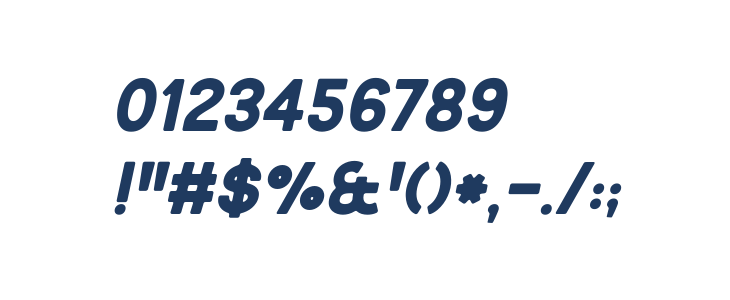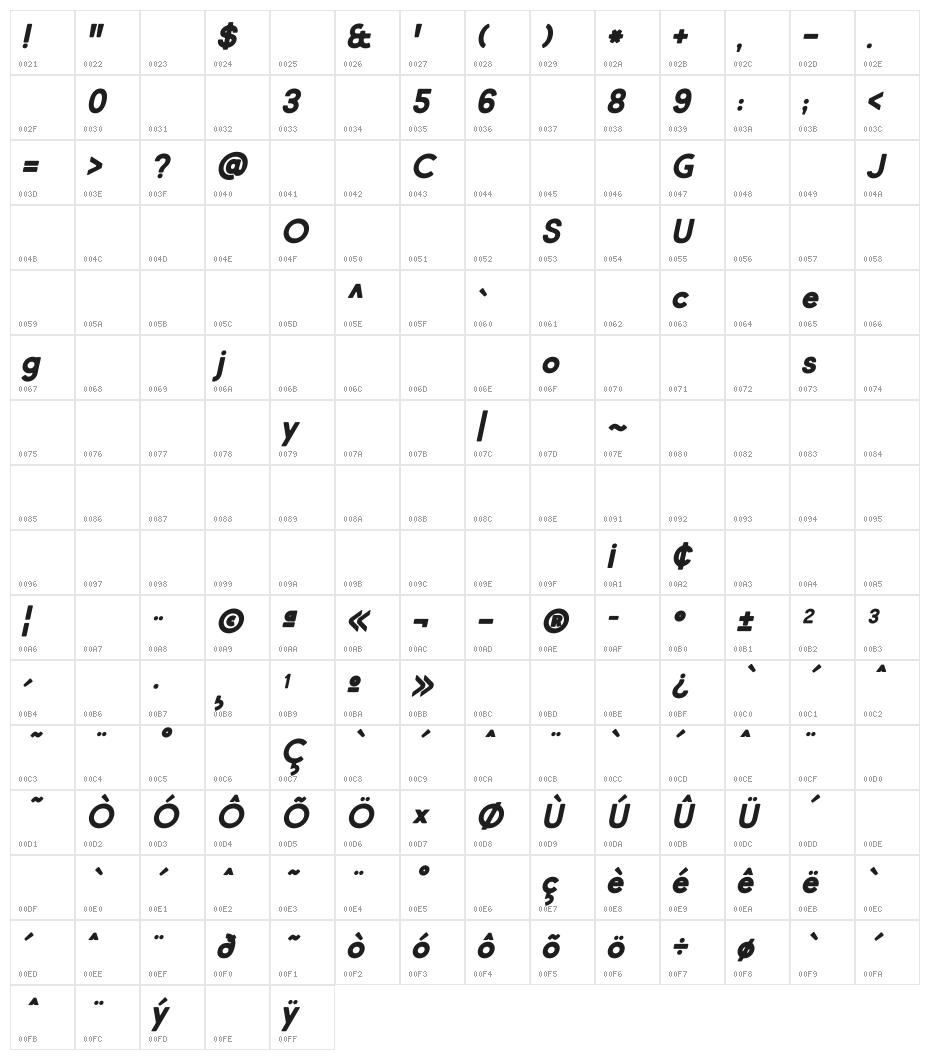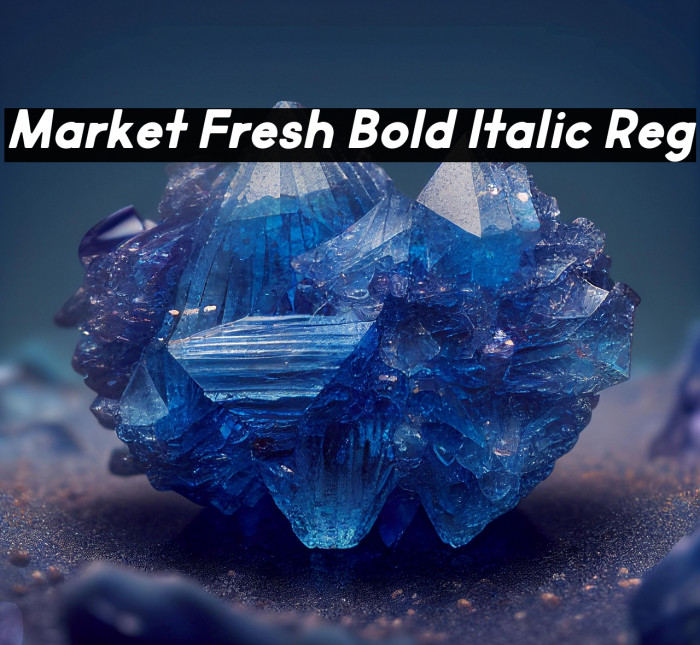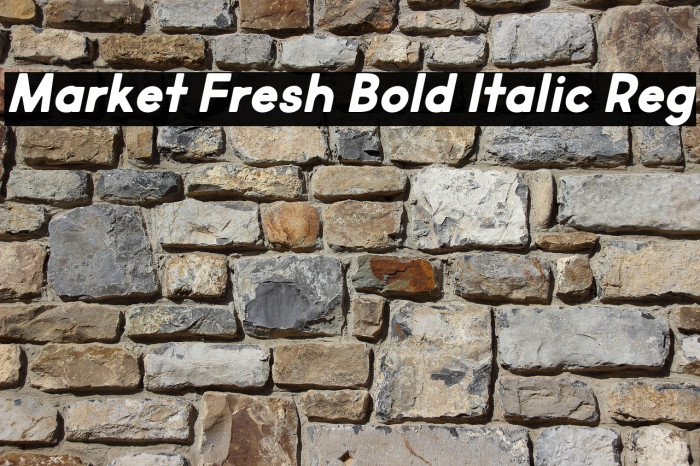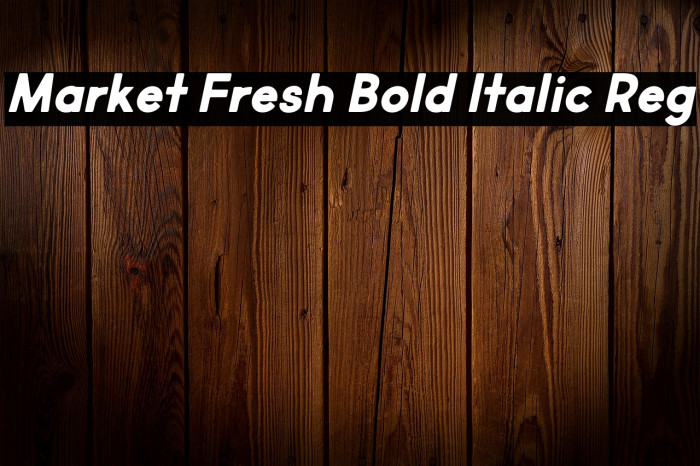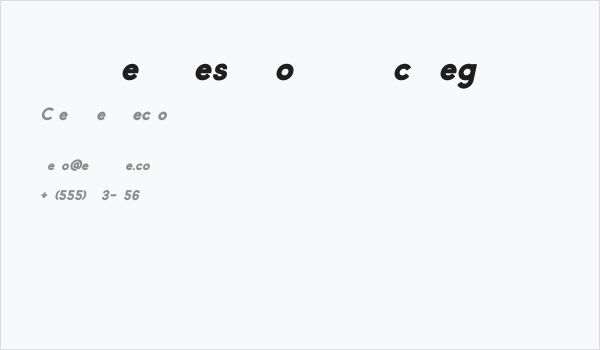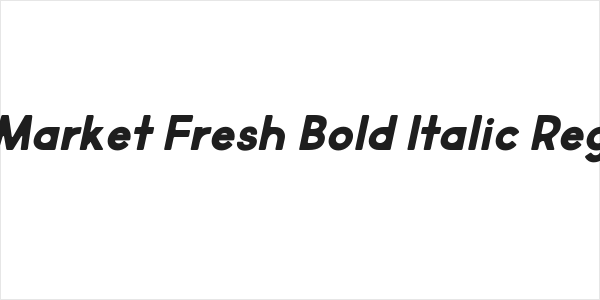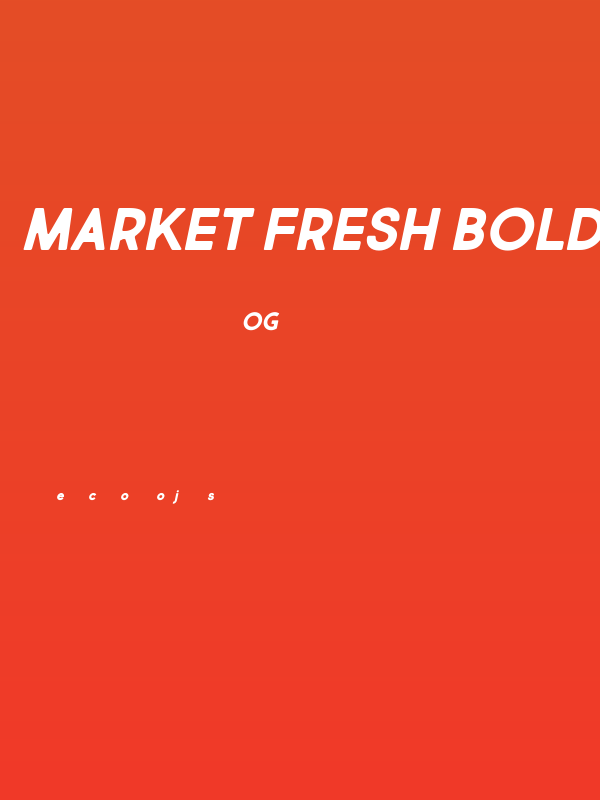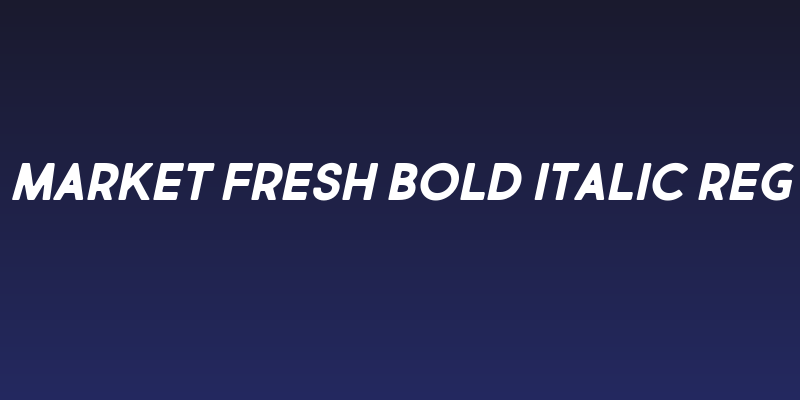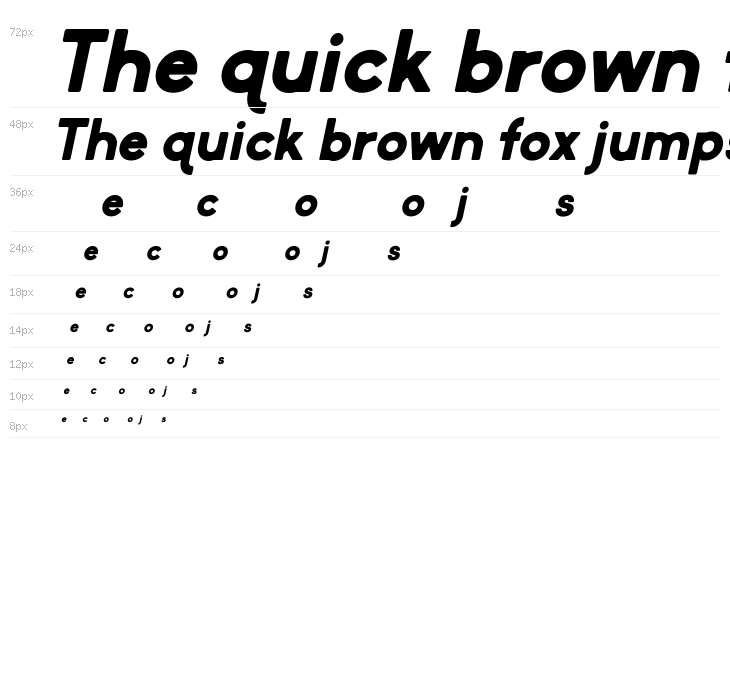
Market Fresh Bold Italic Reg Font
Market Fresh Bold Italic Reg Description
This font exhibits a bold and dynamic style with a pronounced italic slant, giving it a sense of movement and energy. The characters are thick and rounded, providing a friendly and approachable appearance. The uppercase and lowercase letters maintain a consistent weight, ensuring readability and uniformity. Numbers and special characters are equally bold, making them stand out effectively. The font's overall design is modern and versatile, suitable for a variety of applications where a strong and engaging presence is desired.
| Proposed Projects | Ideal for branding, advertising, headlines, and packaging design where a bold statement is needed. |